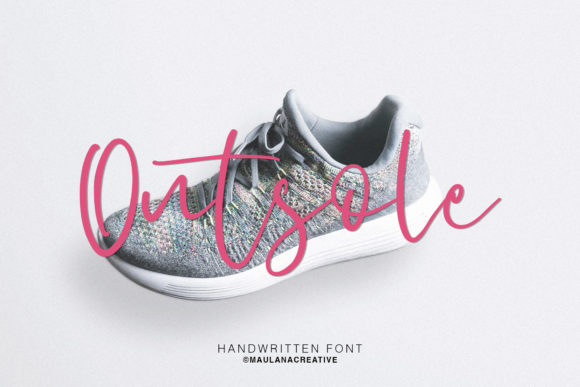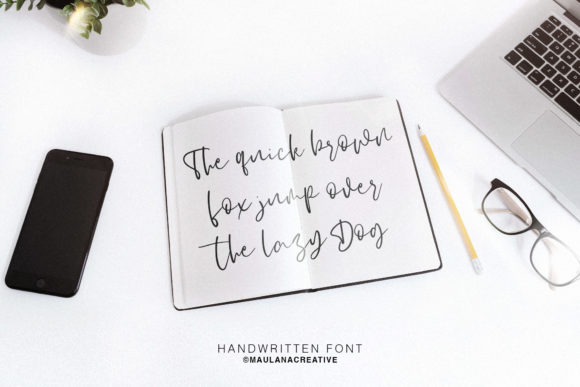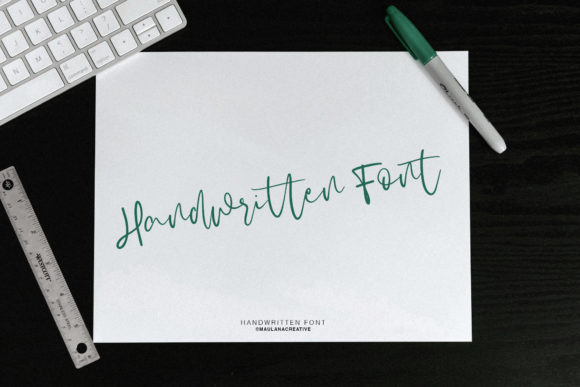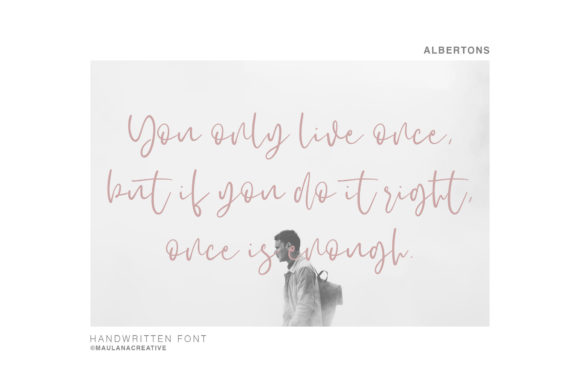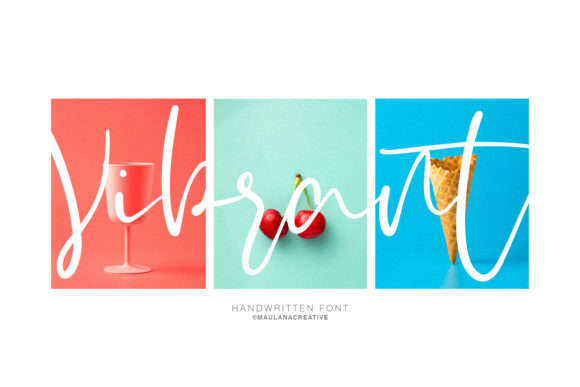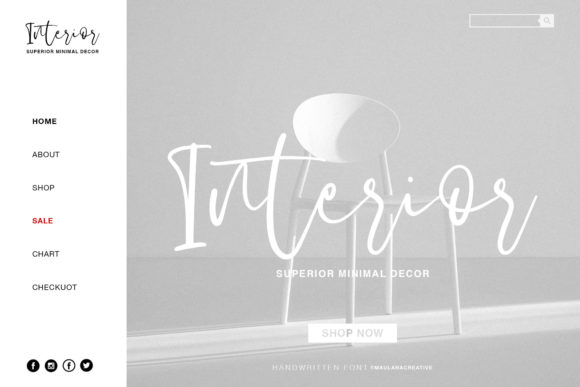
Introducing Albertons Script Font: The Perfect Choice for Crafters
Are you a designer or crafter looking for a font that can add a touch of playfulness and elegance to your projects? Look no further than Albertons Script Font! This beautiful font delivers a bouncy baseline and smooth curves, making it an ideal crafting font for a wide range of creative endeavors.
What Makes Albertons Script Font So Special?
Albertons Script Font is a unique and versatile font that is perfect for crafters, designers, and anyone looking to add a personal touch to their projects. Its bouncy baseline and smooth curves give it a lively and energetic feel, while its elegant lines and curves make it suitable for more formal projects as well.
Whether you’re creating handmade cards, scrapbooking pages, or DIY crafts, Albertons Script Font is the perfect choice. Its smooth, flowing lines make it easy to read and write, while its playful bounce adds a touch of whimsy and fun.
Key Features of Albertons Script Font
- Bouncy Baseline: Albertons Script Font features a unique bouncy baseline that gives it a lively and energetic feel.
- Smooth Curves: The font’s smooth curves make it easy to read and write, while adding a touch of elegance to your projects.
- Versatile: Albertons Script Font is perfect for a wide range of creative projects, from handmade cards and scrapbooking pages to DIY crafts and more.
- Elegant: Despite its playful bounce, Albertons Script Font has an elegant and sophisticated feel that makes it suitable for formal projects as well.
Uses for Albertons Script Font
Albertons Script Font is perfect for a wide range of creative projects, including:
- Handmade Cards: Add a personal touch to your handmade cards with Albertons Script Font.
- Scrapbooking Pages: Use Albertons Script Font to add a touch of elegance and whimsy to your scrapbooking pages.
- DIY Crafts: Albertons Script Font is perfect for DIY crafts, such as wood signs, iron-on designs, and more.
- Digital Projects: Albertons Script Font is also perfect for digital projects, such as blog posts, social media graphics, and more.
Tips for Using Albertons Script Font
Here are a few tips for getting the most out of Albertons Script Font:
- Experiment with Sizes: Albertons Script Font looks great in a variety of sizes, from small and delicate to large and bold.
- Pair with Other Fonts: Albertons Script Font pairs well with a variety of other fonts, including serif and sans serif fonts.
- Use for Headings and Titles: Albertons Script Font is perfect for headings and titles, adding a touch of elegance and whimsy to your projects.
Albertons Script Font is a unique and versatile font that is perfect for crafters, designers, and anyone looking to add a personal touch to their projects. Its bouncy baseline and smooth curves make it an ideal crafting font, while its elegant lines and curves make it suitable for more formal projects as well. Whether you’re creating handmade cards, scrapbooking pages, or DIY crafts, Albertons Script Font is the perfect choice.